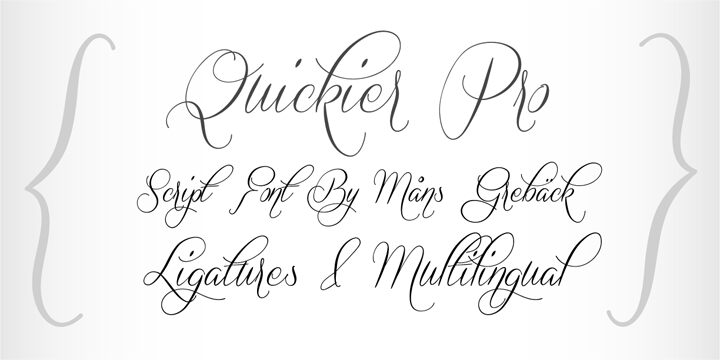
Quickier by Måns Grebäck is a free calligraphic script with sweeping capitals and dramatic changes from fine hairlines to broad downstrokes. Oversized loops and far-reaching swashes make the lettering unabashedly ornate.
Fashion and beauty audiences are a natural match for its glamorous signature style, which could shape perfume packaging or boutique signage. Wedding invitations and event stationery also suit the generous flourishes and formal sweep. In branding, the extended strokes can become part of a label or monogram rather than merely naming the product.